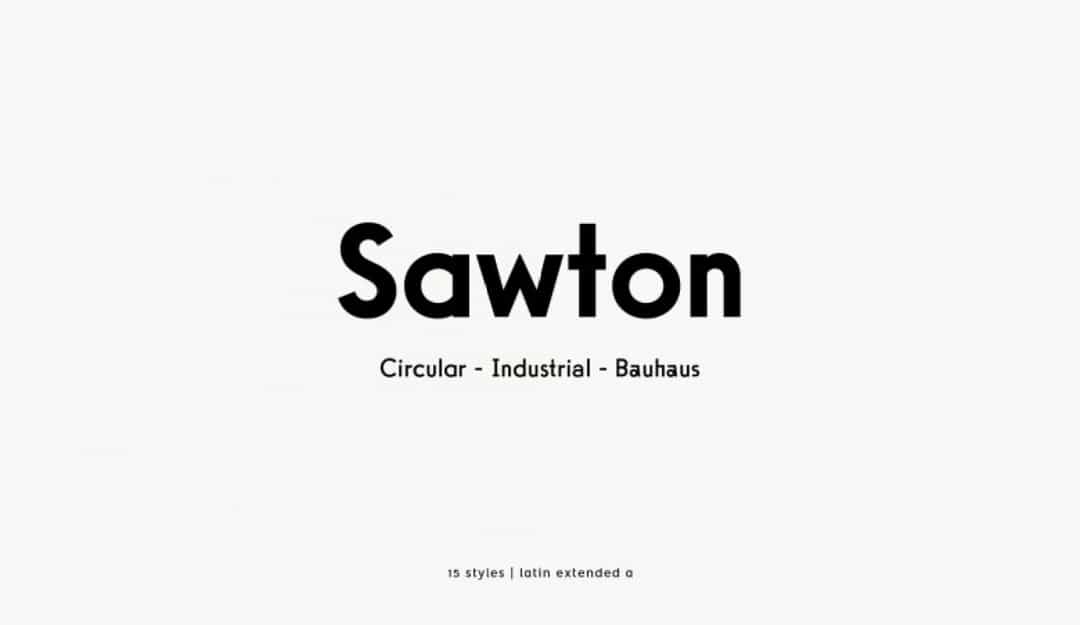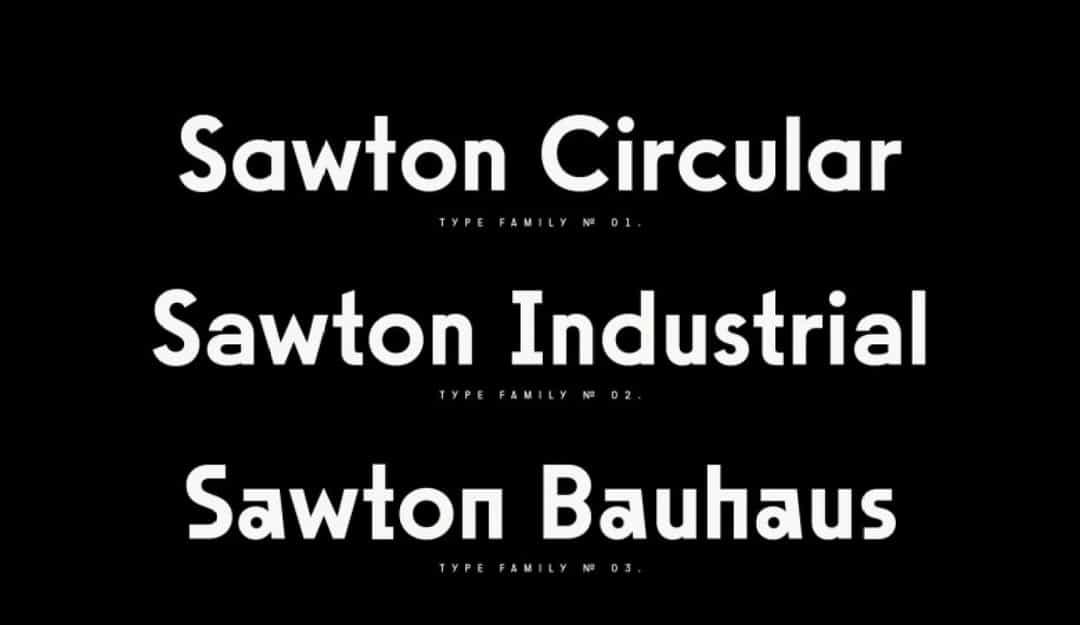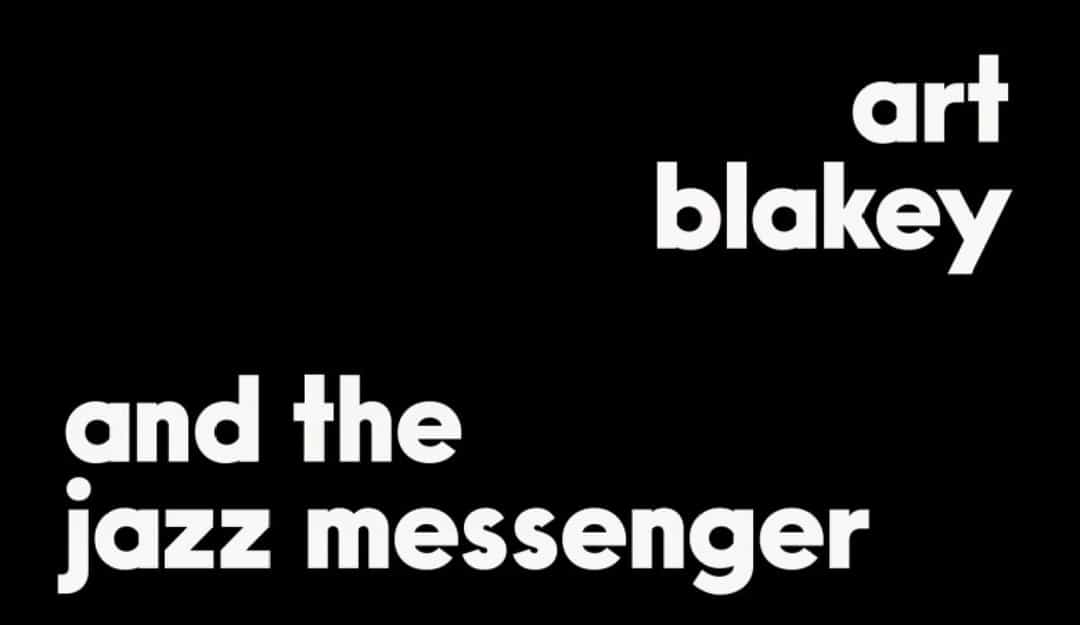
Sawton Font was designed by Atipois. A tipois font family brings modern, fresh style into any setting with their geometric sans-serif fonts that combine subtle roughness with intricate geometry to produce an incredible unique font family – the Circular, Industrial, and Bauhaus font styles being available as choices.